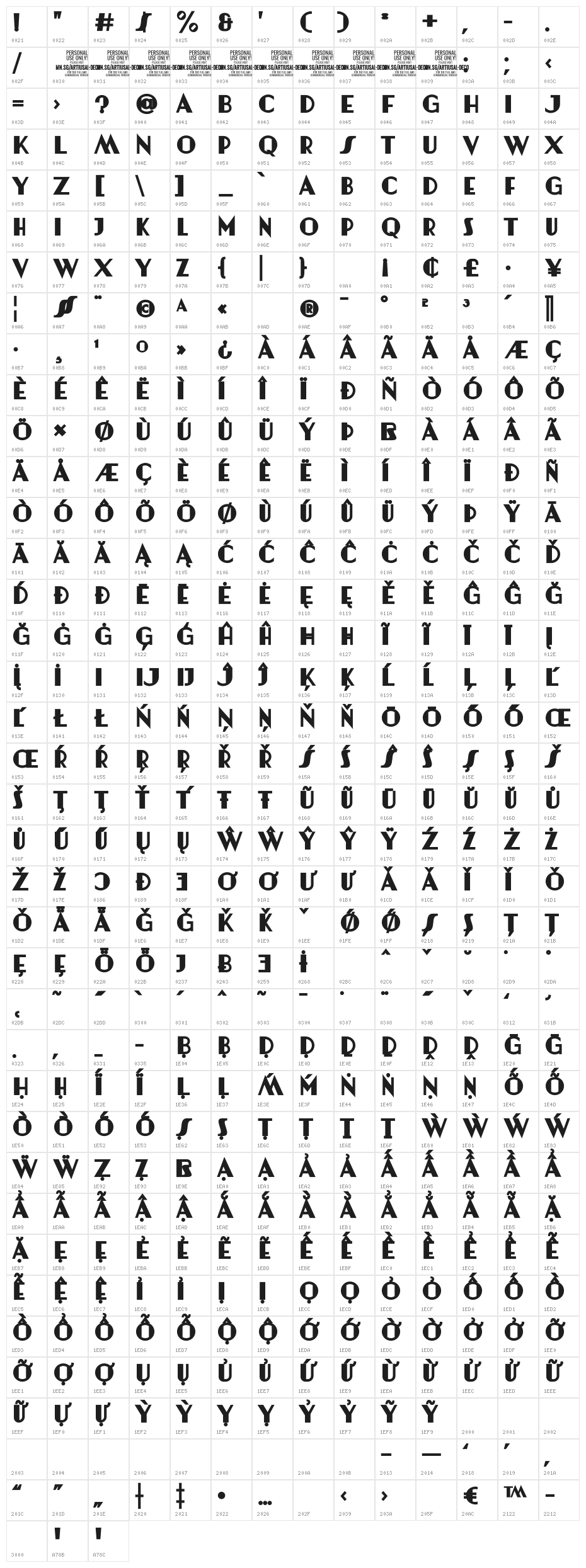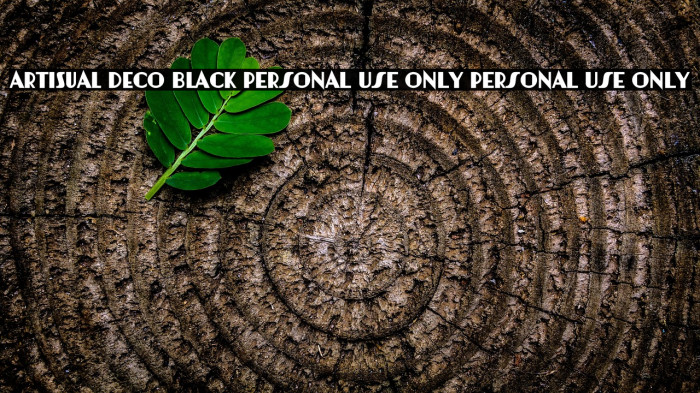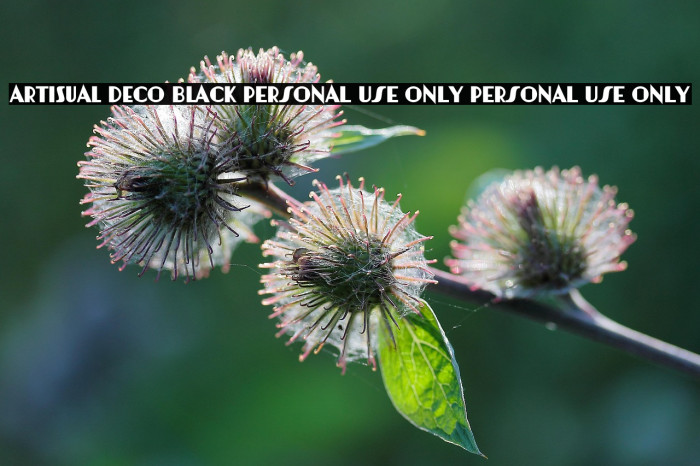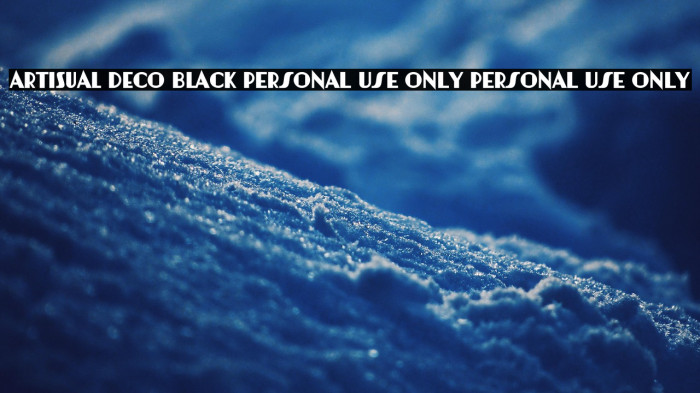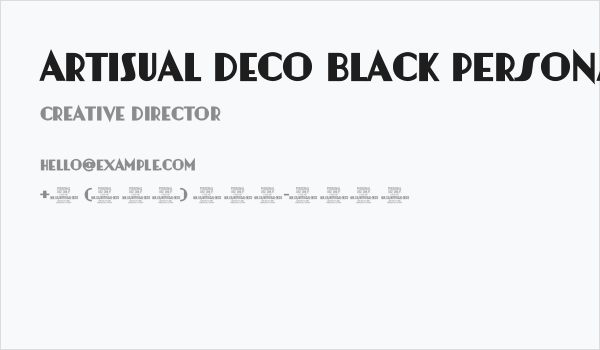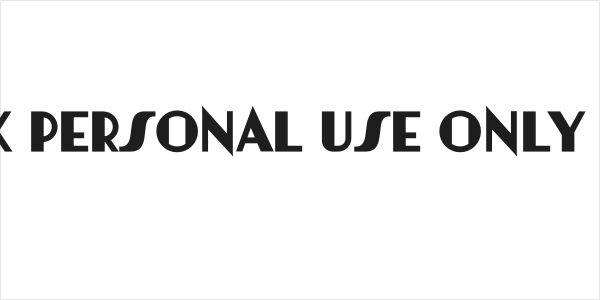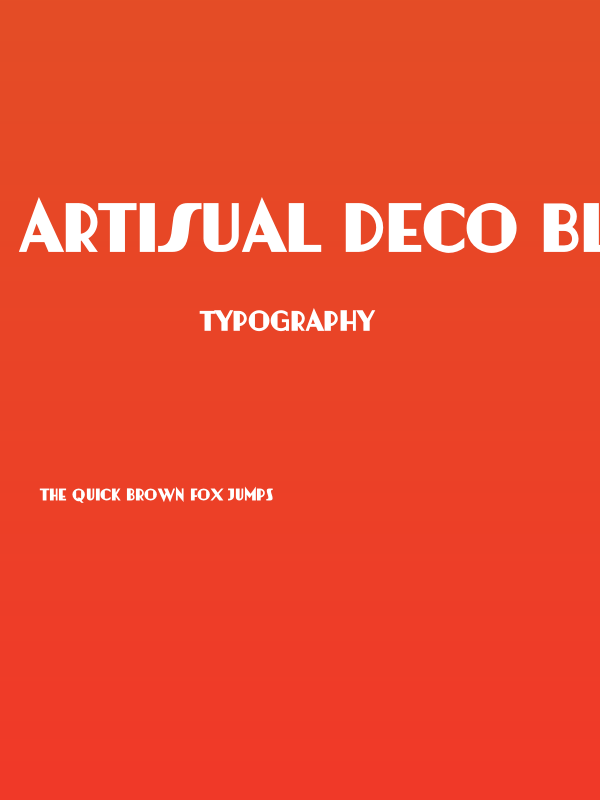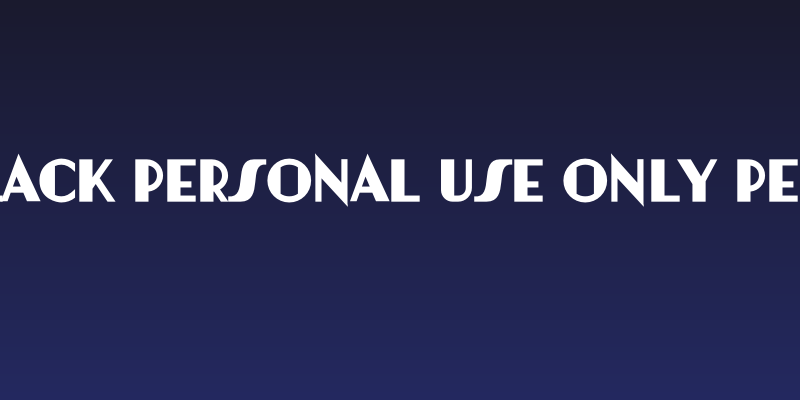
Artisual Deco Black PERSONAL USE ONLY Font
Artisual Deco Black PERSONAL USE ONLY Description
This font features a bold and striking Art Deco style, characterized by its geometric shapes and sharp angles. The uppercase letters are particularly prominent, with a strong presence that commands attention. The design incorporates a mix of thick and thin strokes, creating a dynamic contrast that enhances its visual appeal. The characters are tightly spaced, adding to the compact and cohesive look of the font. The special characters maintain the same bold and geometric aesthetic, making them suitable for various decorative purposes.
| Proposed Projects | Ideal for vintage-themed posters, branding, and logo design, as well as for creating eye-catching headlines and titles. |